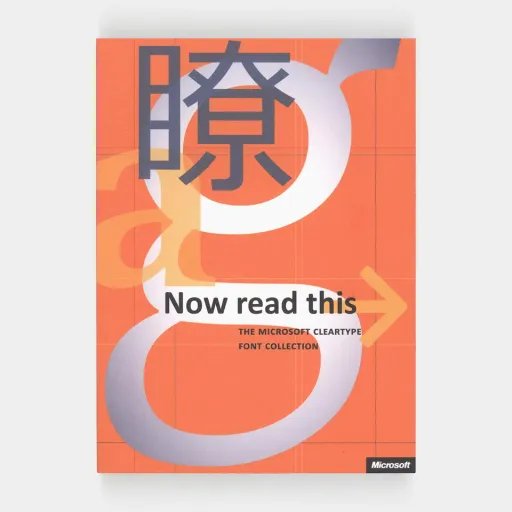
Now Read This: The Microsoft ClearType Font Collection
This is the cover of a book with the theme of Cleartype design published by Microsoft in 2004. This book introduces a series of fonts designed by Microsoft for the purpose of clear to read, such as Constantia, which is a serif type designed for readability; Cambria which is a serif font optim…